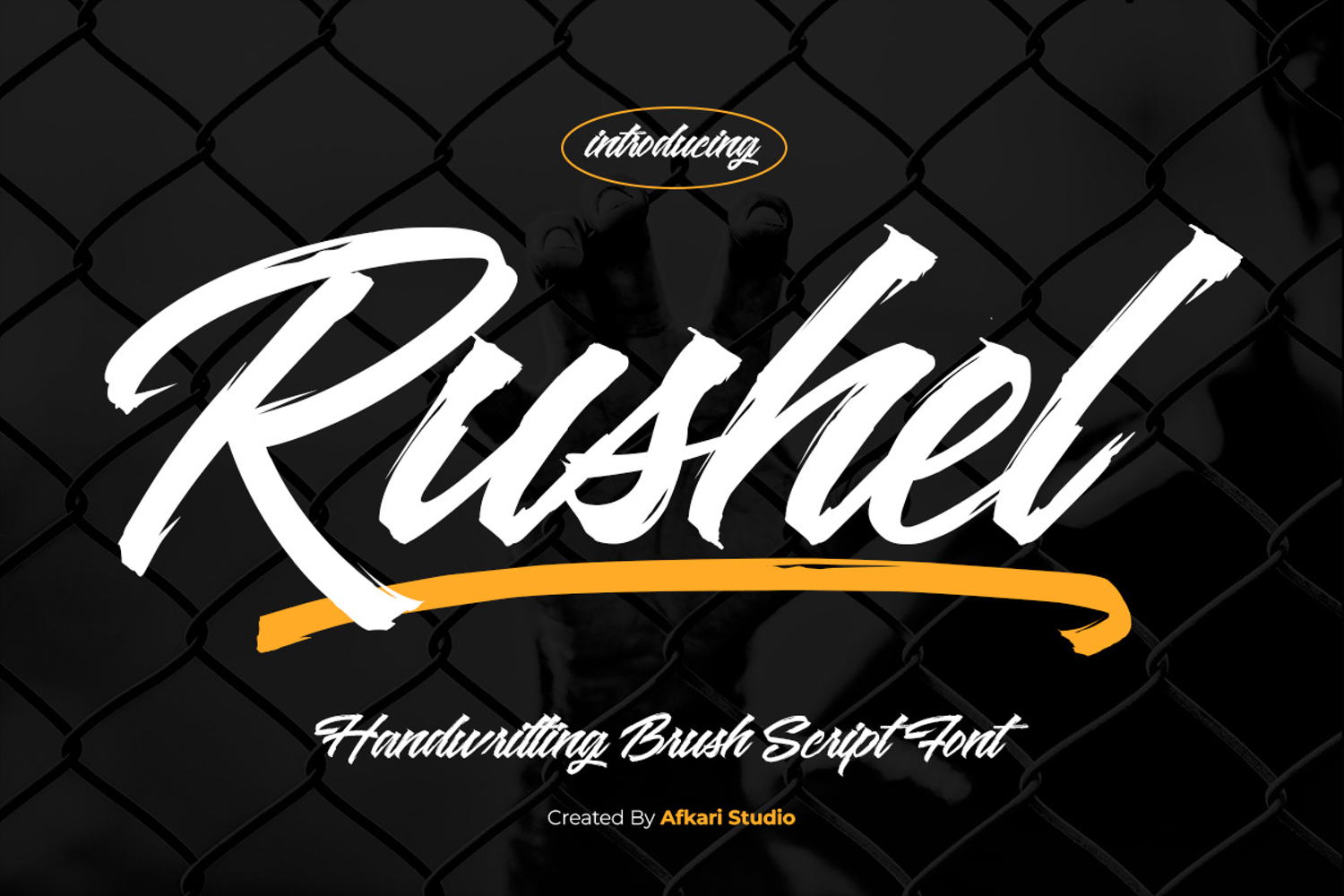
Rushel - Handwritting Brush Script Font
Rushel is a dynamic handwriting brush script font designed to bring natural energy and bold personality into your creative projects. Inspired by expressive brush strokes and modern hand lettering, Rushel delivers an authentic handwritten feel with smooth curves and confident movement. This font captures the perfect balance between raw brush texture and clean readability, making it ideal for eye-catching typography.
Crafted for designers who love expressive script fonts, Rushel works beautifully for branding, logo design, social media graphics, posters, packaging, merchandise, and promotional materials. Its flowing letterforms create a strong visual rhythm, while the handcrafted brush style adds warmth and originality to every design.
Rushel includes uppercase and lowercase characters, numbers, punctuation, and essential symbols to support versatile design needs. Whether you’re building a bold brand identity, designing a stylish product label, or creating standout headlines, this brush script font helps your typography feel alive and impactful.
Features;
- Bold and expressive brush strokes
- Natural handwritten flow
- Numbers & punctuation
- Strong readability for headlines
- Ideal for branding & signature logos
- Mültîlíñgúãl Sùppört for; ä ö ü Ä Ö Ü ß ¿ ¡
Add expressive character and handcrafted charm to your next project with Rushel – a handwriting brush script font made to elevate bold, modern designs.